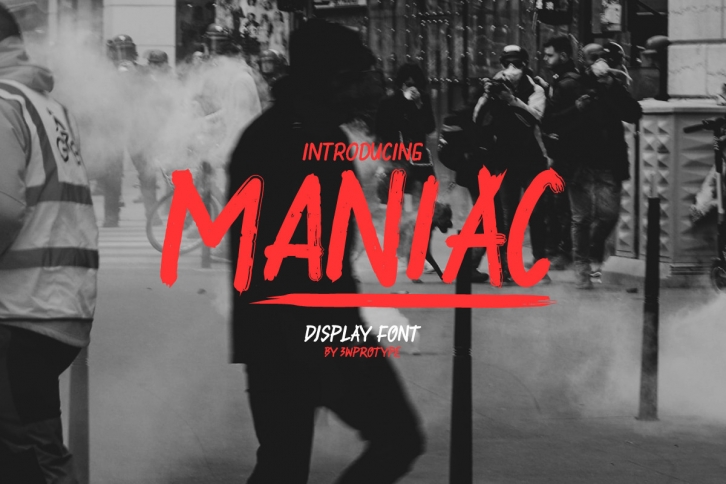
Maniac is a cool display font made specifically to satisfy all design needs such as branding, quotes, and more. With a stylish feel and a unique brush set, this font is suitable for designers who are willing to create attention-grabbing materials!